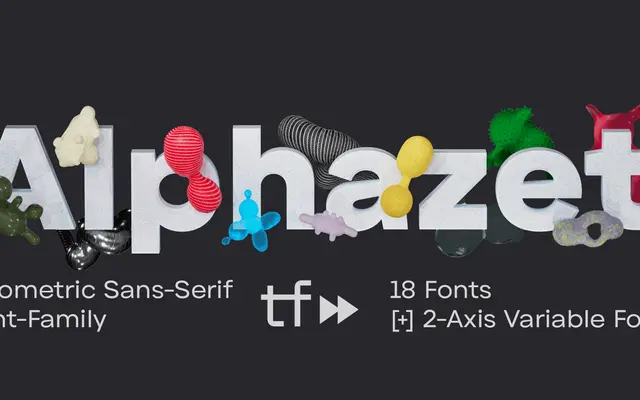
Alphazet
Type Forward · Luboslav Boyanov, Stan Partalev and Mirela Belova
A geometric sans with a deliberate slight imbalance, available as a variable font across nine weights with Cyrillic support.
Designed by Luboslav Boyanov, Stan Partalev and Mirela Belova, Alphazet pairs geometric construction with an intentional asymmetry that softens the usual rigidity of the style. The family spans nine weights from Hairline to Black, each with a matching italic, and ships as a variable font. A broad set of OpenType features covers ligatures, fractions, small figures, case-sensitive punctuation, stylistic sets and localised Cyrillic forms.
Described explicitly as a geometric sans serif with a slight imbalance, placing it firmly in the geometric category with a distinctive character that sets it apart from purely neutral geometrics.